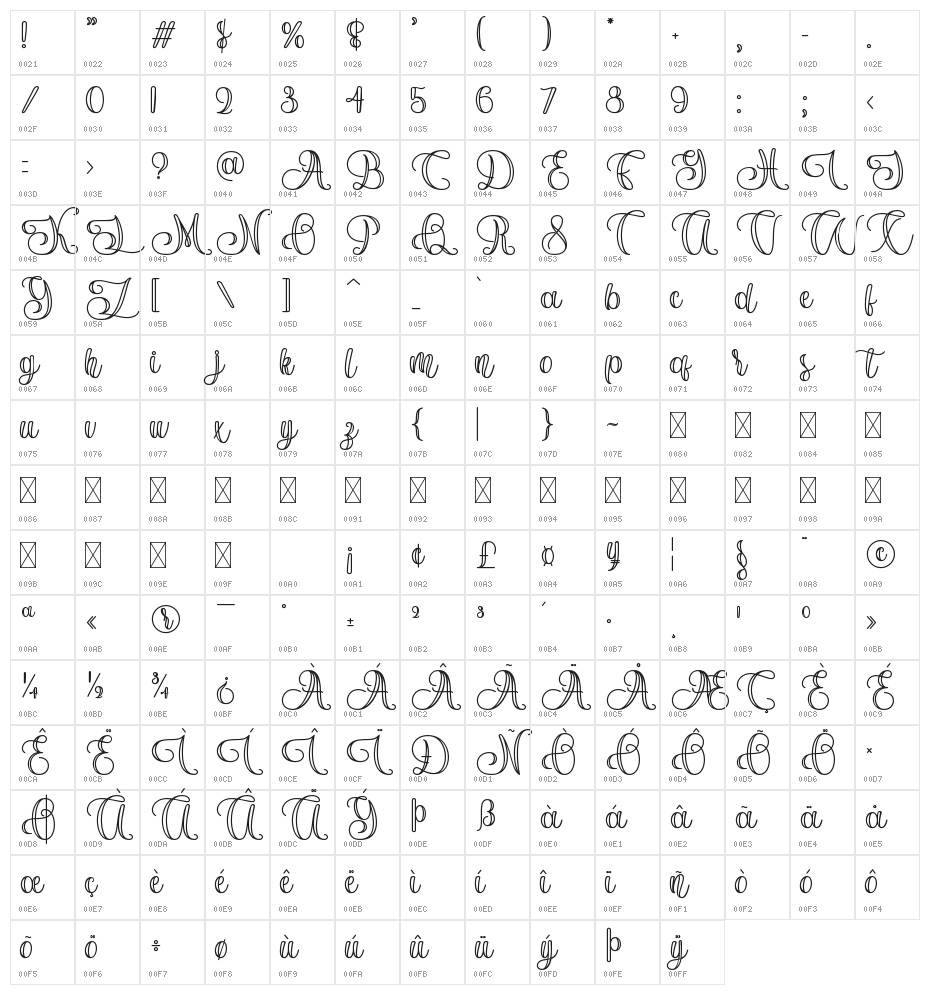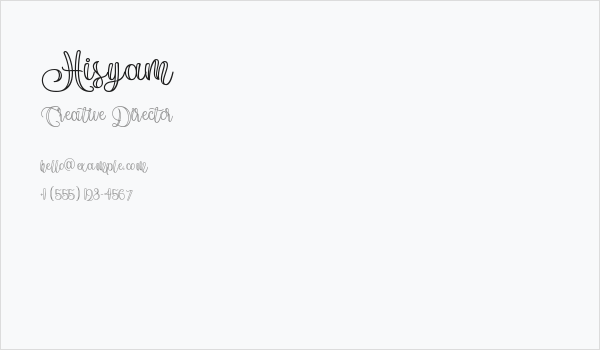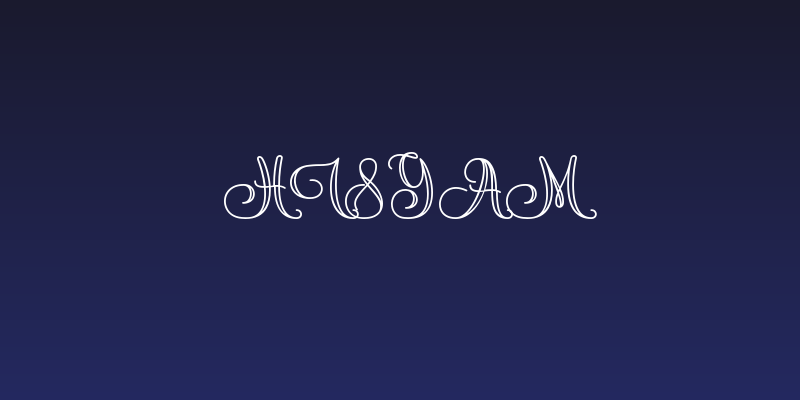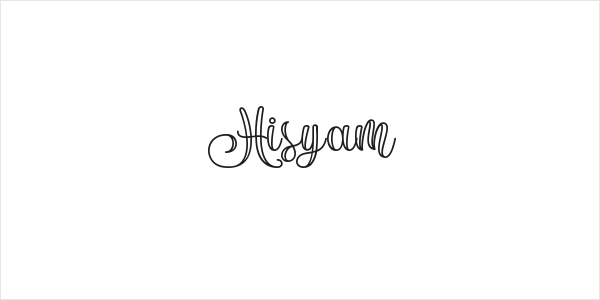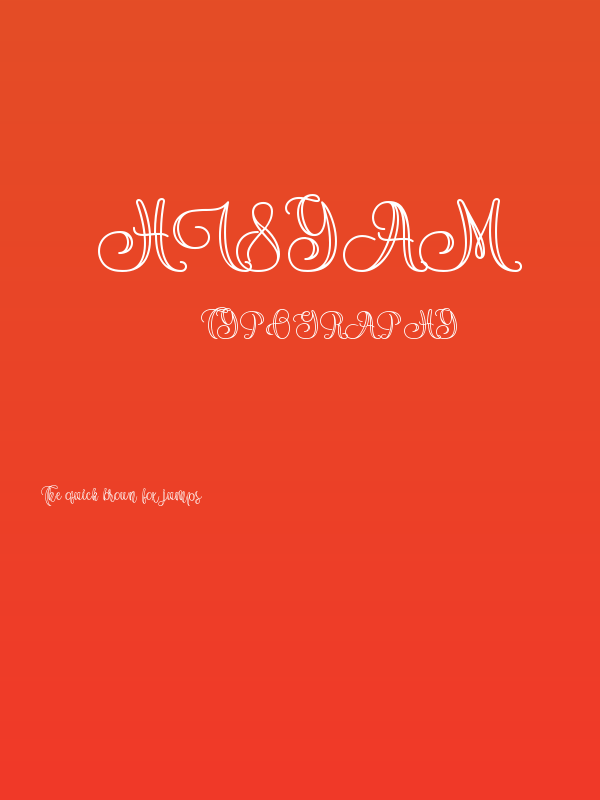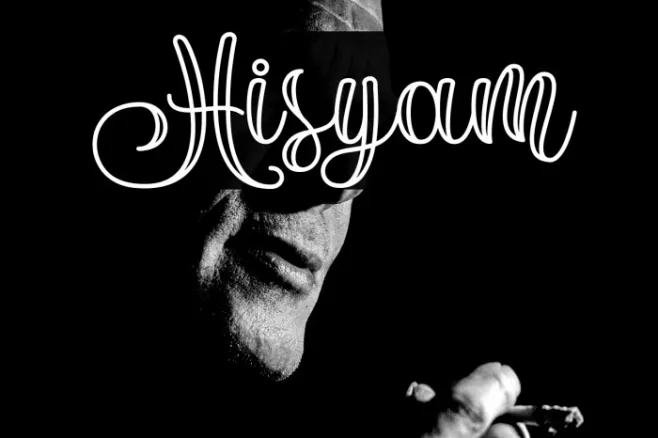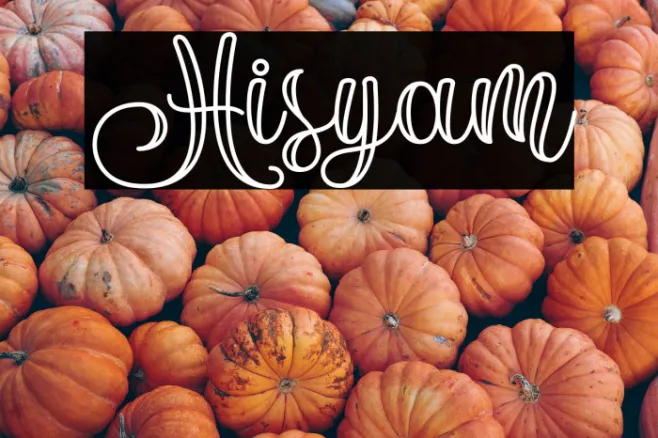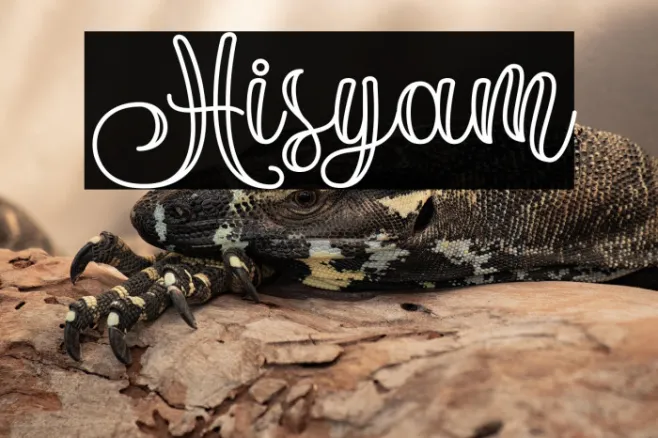
Hisyam Font
Hisyam Description
This font features an elegant and decorative script style with intricate loops and flourishes. The uppercase letters are particularly ornate, with each character showcasing unique swirls that add a touch of sophistication. The lowercase letters maintain a consistent flow, offering a harmonious balance between readability and artistic flair. Numbers and special characters are designed to complement the overall aesthetic, making them suitable for creative and formal applications. The font's playful yet refined nature makes it ideal for projects that require a touch of elegance and creativity.
| Proposed Projects | Ideal for wedding invitations, branding, greeting cards, and decorative signage. |